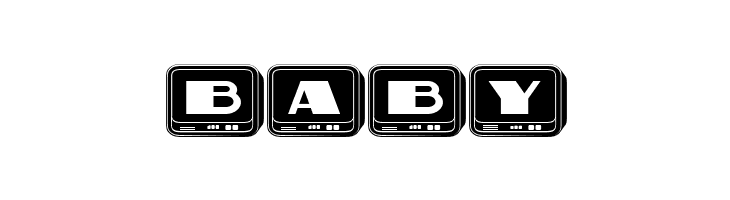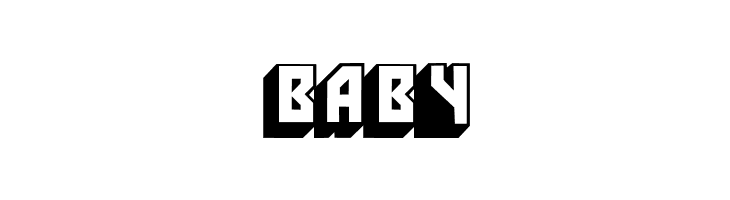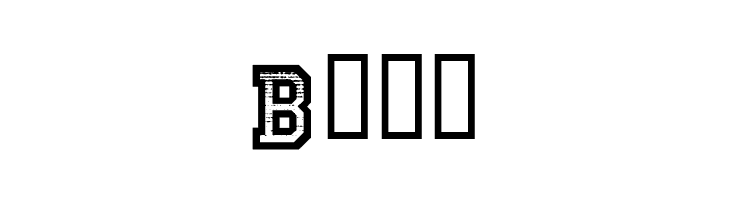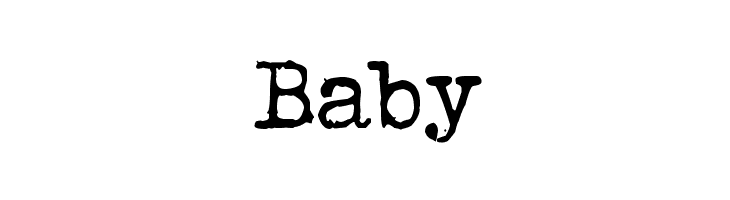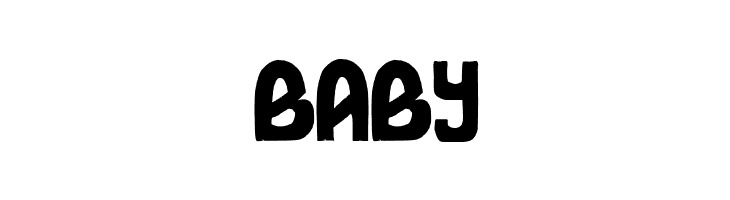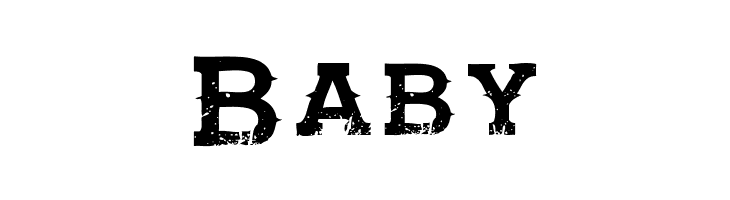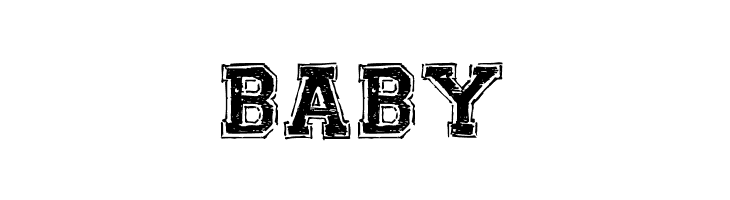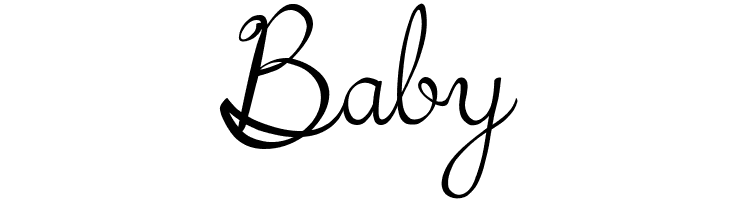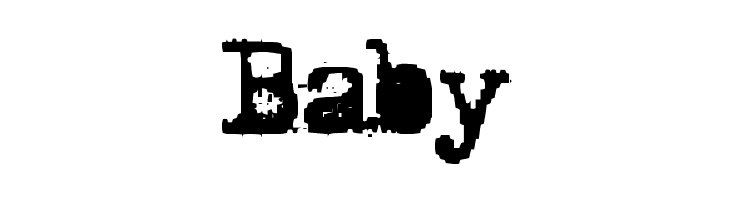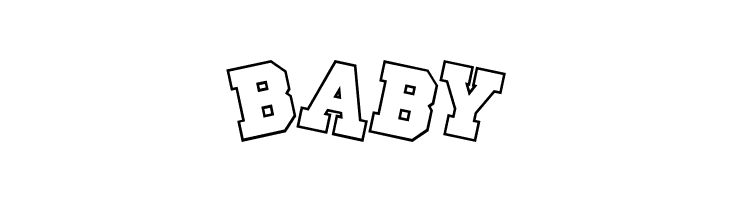
A retro, tech-inspired font with bold, blocky characters enclosed in rounded squares.
A bold, condensed font with a textured, vintage appearance.
A bold, textured font with a vintage, distressed style.
A bold, 3D geometric font with a retro, comic book style.
A bold, striped collegiate-style font with a nostalgic varsity feel.
A vintage, typewriter-style font with a distressed, monospaced look.
A bold, vintage-style font with rounded edges and a retro feel.
A bold, vintage-style font with strong serifs and geometric shapes.
A bold, distressed font with a rugged, vintage appearance.
A bold, decorative font with a vintage, textured style ideal for standout designs.
A playful cursive font with fluid, connected characters and a nostalgic charm.
A bold, distressed font with a vintage, grunge aesthetic.
A bold, decorative font with a textured, vintage appearance.
A bold, sketch-style font with a hand-drawn, textured appearance.
Bold, outlined font with a sporty, collegiate style.
Bold, blocky font with a vintage flair, ideal for impactful designs.
A bold, outlined font with a playful, bouncy style and a collegiate vibe.
A bold, geometric font with a digital, futuristic aesthetic, reminiscent of mobile phone keypads.
A bold, 3D font with a retro, digital aesthetic, enclosed in phone-like shapes.
A dot matrix font with a retro, tech-inspired design.
A bold, textured, and decorative font with a vintage, rugged style.